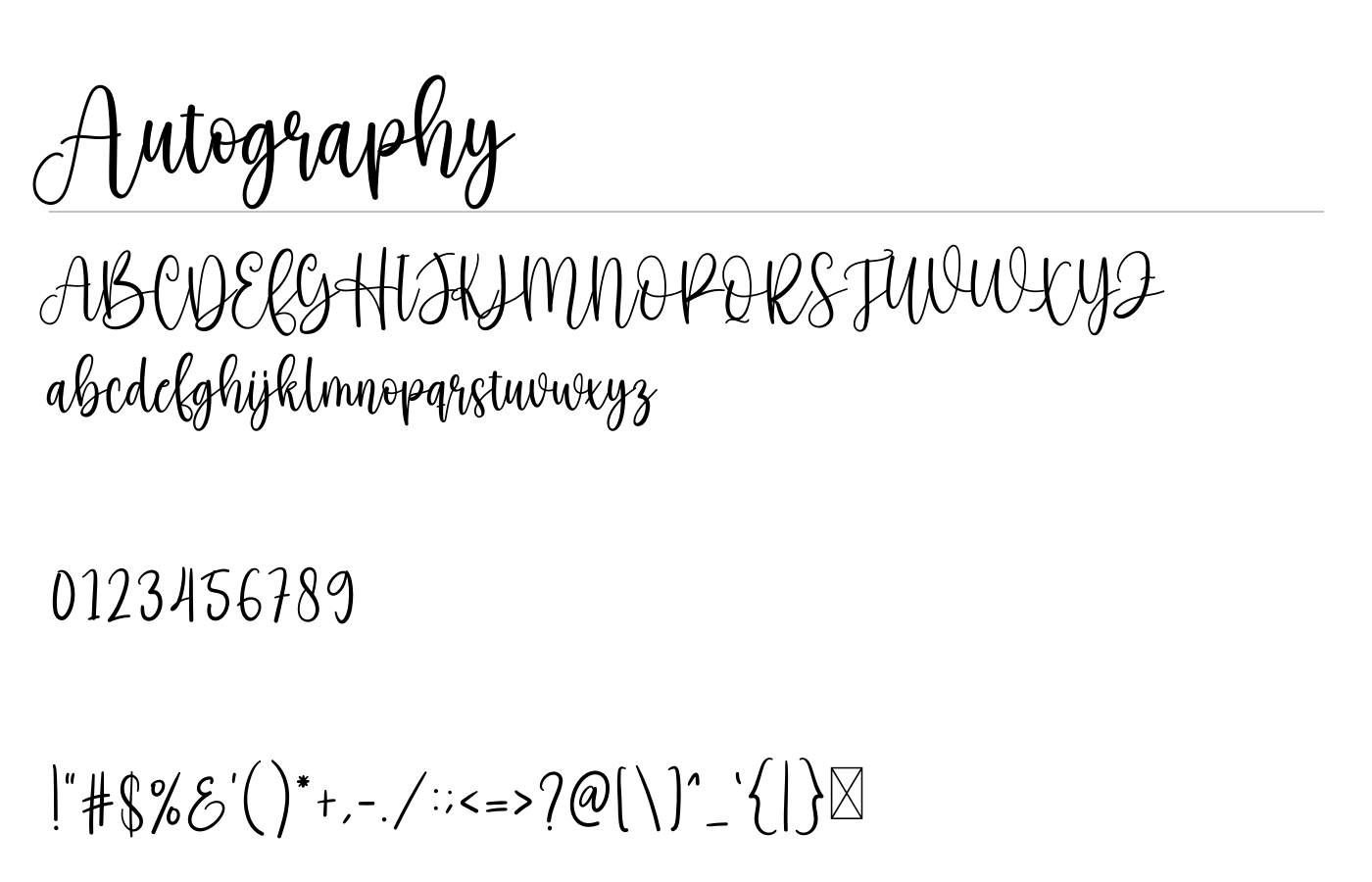
Autography is a delicate, handwritten script font that combines elegance with a casual, personal touch. Its slender, flowing letters feature smooth curves and a slightly tall x-height, making it ideal for feminine branding, invitations, and creative projects that seek a warm, approachable feel. This font works beautifully in logos, packaging, and headlines where a stylish yet friendly script can convey sophistication and charm.
Autography Font
About Autography Font